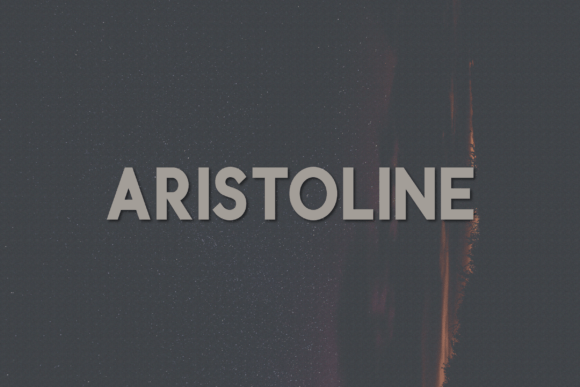
Discover the Elegance of Aristoline: A Modern Sans Serif Typeface
I’ll never forget the moment I stumbled upon the perfect font for a wedding invitation project. I had been searching for what felt like hours, trying out font after font, but nothing seemed quite right. That was until I discovered Aristoline, a modern, classy sans serif typeface that instantly elevated my design. In this article, I’ll share my experience with Aristoline, its features, and how to make the most of this versatile font.
What is Aristoline?
Aristoline is a sans serif typeface that boasts a range of features, making it perfect for various design projects. It includes upper characters, numbers 0-9, and a variety of punctuation and symbols. This font is designed to be extremely versatile, suitable for logos, weddings, invitations, quotes, advertisements, print, magazines, and more!
My Honest Review of Aristoline
Here’s what I love about Aristoline:
• Clean and modern design: Aristoline’s sleek lines and curves make it perfect for contemporary designs.
• Highly legible: The font’s clear structure ensures that your text is easy to read, even at small sizes.
• 🌈 Versatile: With its wide range of characters and symbols, Aristoline can be used for various design projects.
While Aristoline is an excellent font, there are a few minor quirks to be aware of:
• 🤔 Limited italic options: While Aristoline has an elegant upright style, its italic options are somewhat limited.
• ⚠️ Some glyphs require manual adjustment: A few glyphs may need manual adjustment to ensure optimal spacing and alignment.
The Story Behind Aristoline
Aristoline was designed with the goal of creating a modern, classy sans serif typeface that could be used for a wide range of design projects. Inspired by the elegance of classic typography and the simplicity of modern design, Aristoline’s creator aimed to craft a font that would be both versatile and beautiful.
What type of projects is Aristoline suitable for? Aristoline is perfect for logos, weddings, invitations, quotes, advertisements, print, magazines, and more!
Does Aristoline include OpenType features? Yes, Aristoline includes OpenType features, such as stylistic alternates and glyphs, which can be accessed in compatible design software.
Is Aristoline easy to read? Yes, Aristoline is designed to be highly legible, even at small sizes.